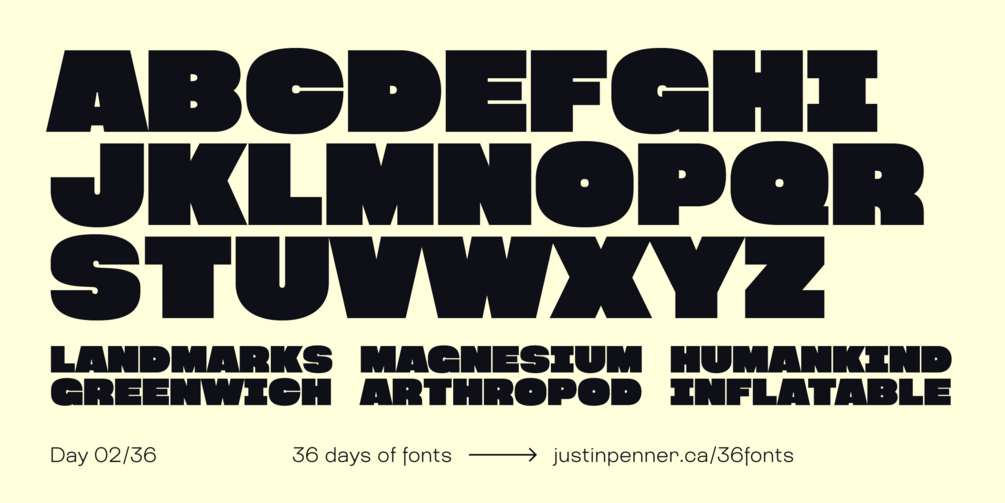
36 Days of Fonts: Day 02
Chonk is now Megabold! Megabold is a retail font with an extended character set, new slanted styles, and many more improvements.
Chonk
I designed an ultra-heavy weight for the first time recently, on another project. I wanted to remove some restrictions and push it even further, and this is the result (drawn from scratch, not modified from the other project I mentioned).